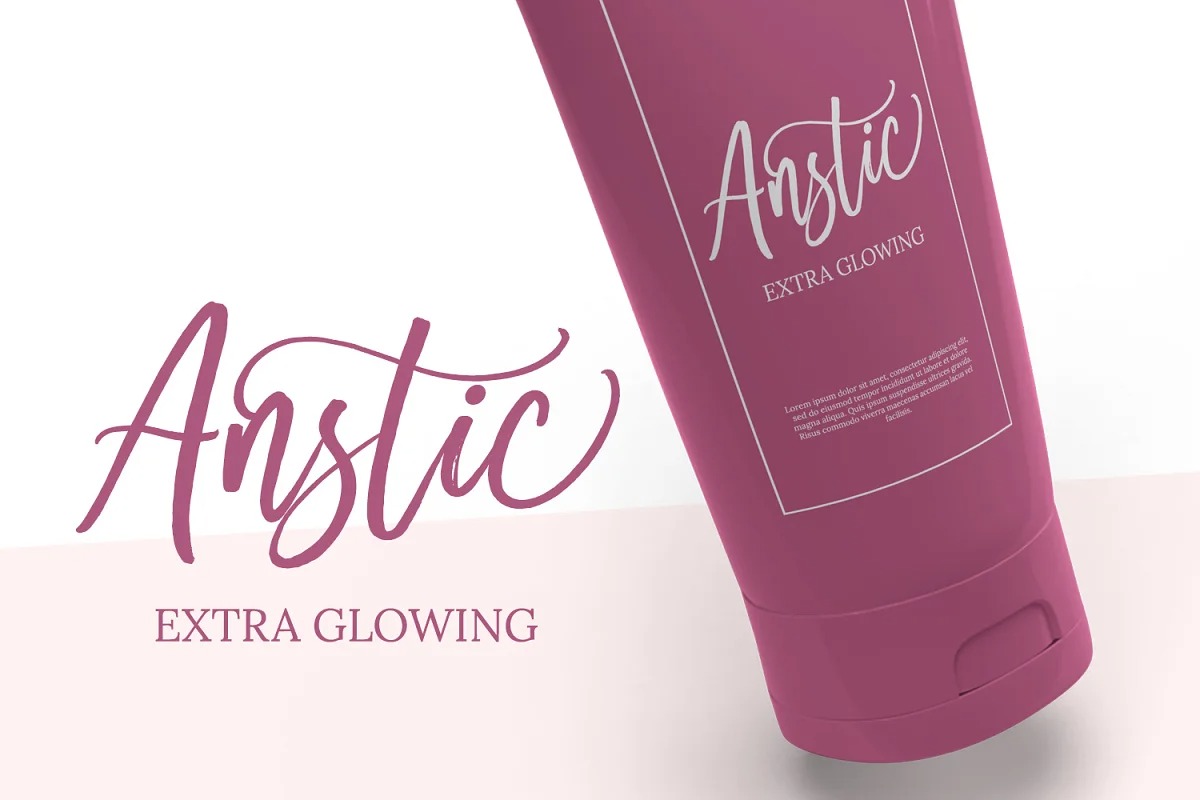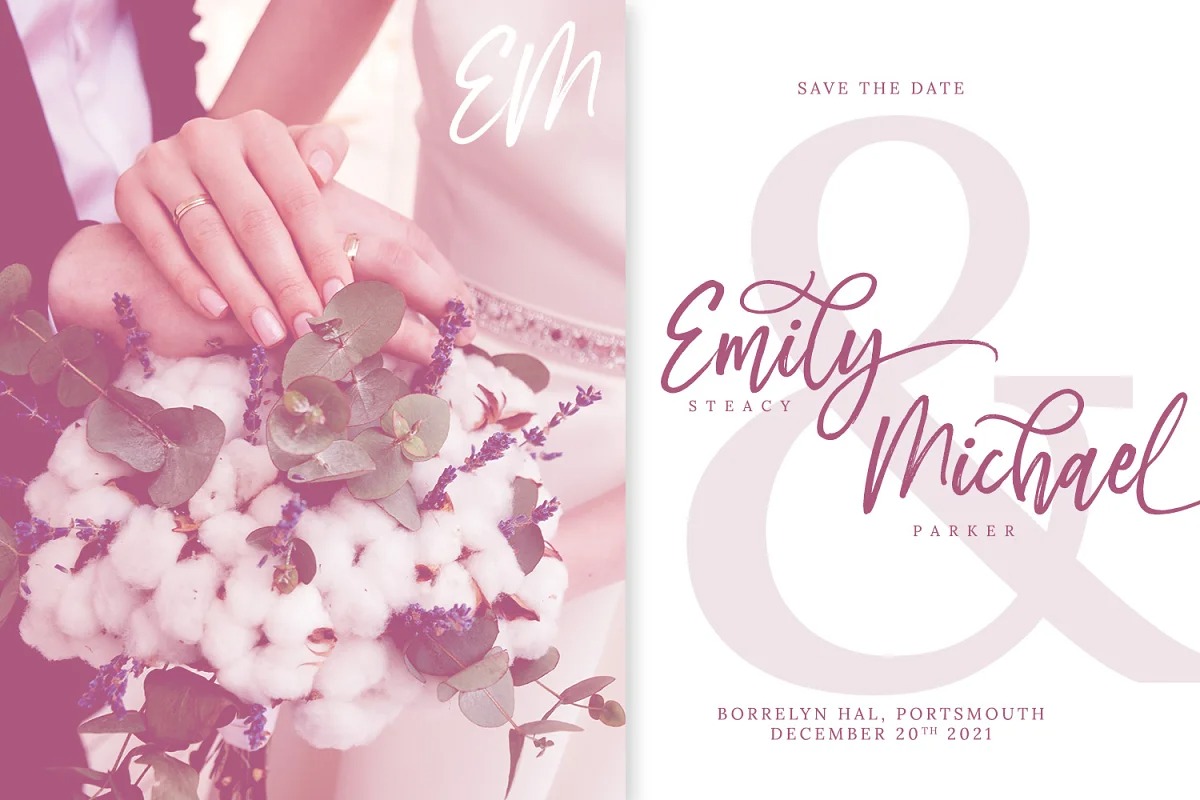
Steamy Miracles Script Font
This is a natural brush handwritten typeface Din Studio with a modern signature style and elegance. Designed primarily as a captivating handcrafted with style. This font is perfect for anything luxury, elegant, and direct. Every swash, stroke, and curve was created to entice happiness and elegance. A real head-turner for your presentation, designs, website illustrations, and much more.